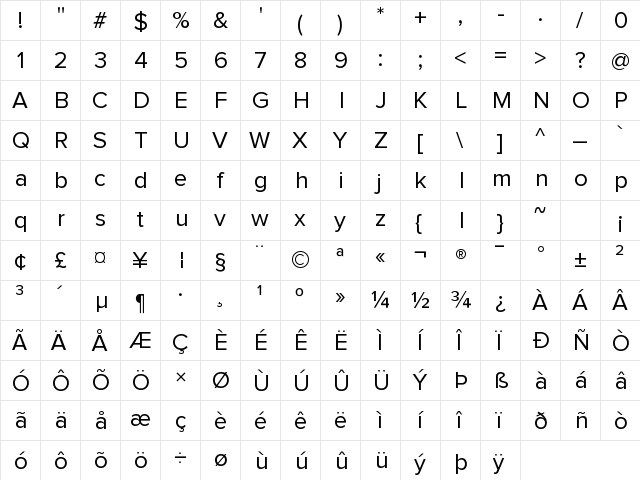
Proxima Nova Rg Regular
| Designer | Mark Simonson |
Design Context for Proxima Nova Rg Typeface
Proxima Nova Rg takes a measured approach to typography — its balanced proportions and neutral character make it a reliable workhorse for both digital and print work.